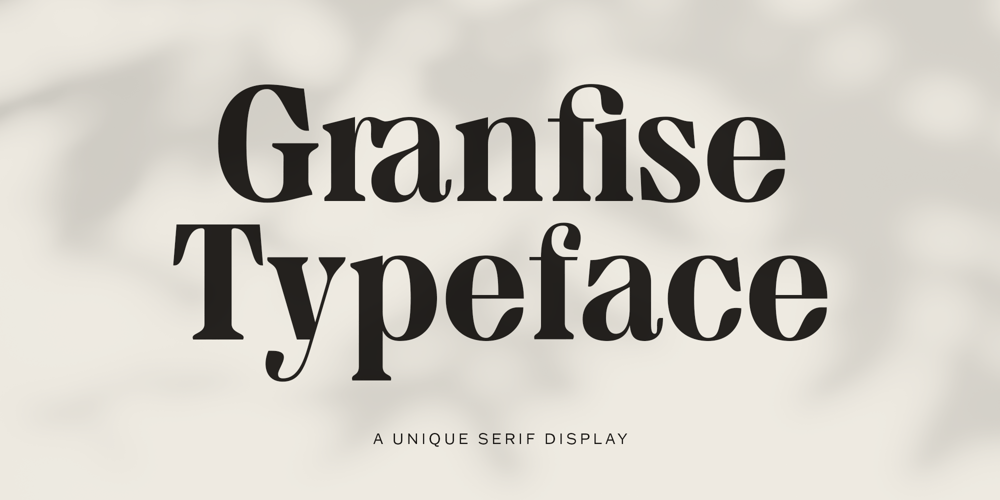
MTC Granfise
MTC Granfise font
MTC Granfise Font Family was designed by Umar Al Farouq and published by Martype co. MTC Granfise contains 2 styles and family package options. MTC Granfise is an elegant and unique serif font. Comes with ligature styles for display purposes to make it satisfying, also suitable for minimalist, elegant, chic, branding, packaging, and logotype design to boost your design exploration.